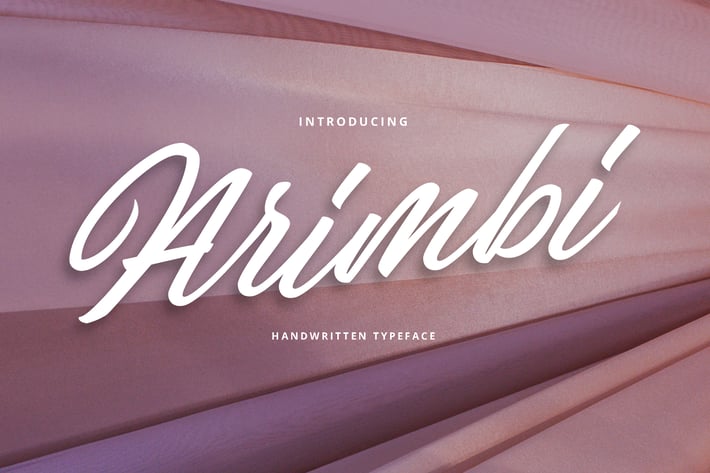
Arimbi Handwritten Typeface Font
Arimbi is perfect to use for Logotype, Letterhead, Poster, Apparel Design, Label and etc.
The alternative characters were divided into several features such as Stylistic Alternates and Ligature.
- All Alternates
- Standard Ligatures